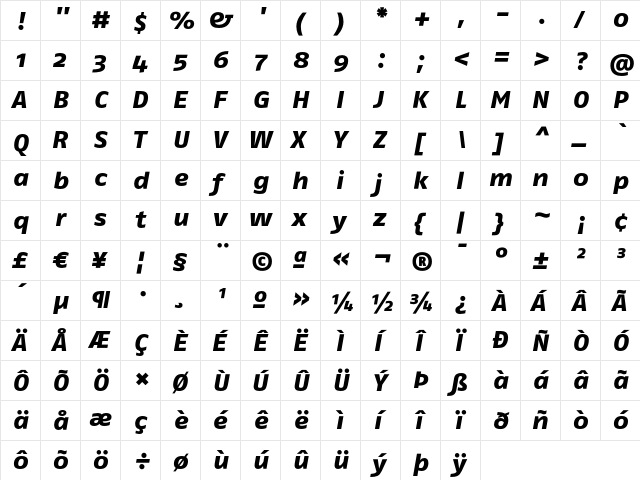
FagoEx ExtraBoldItalic
Design Context for FagoEx Typeface
FagoEx takes a measured approach to typography — its balanced proportions and neutral character make it a reliable workhorse for both digital and print work. The slanted form adds forward momentum and visual energy. The heavy weight commands attention and anchors typographic hierarchies.
Pro Tip: Use FagoEx for emphasis, pull quotes, and subheadings where its slanted energy can add rhythm to the layout.